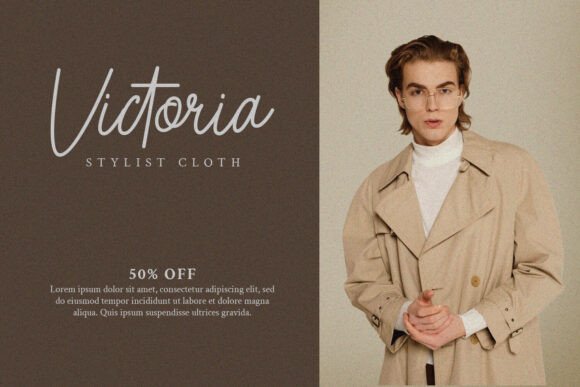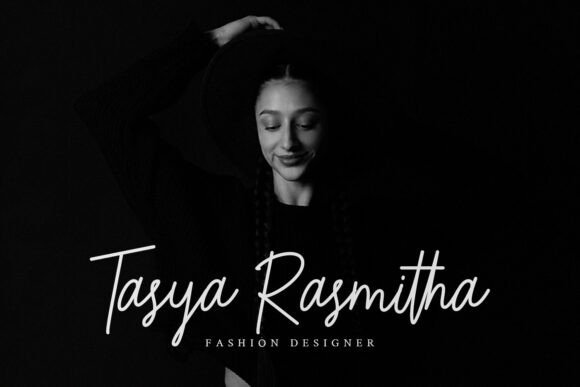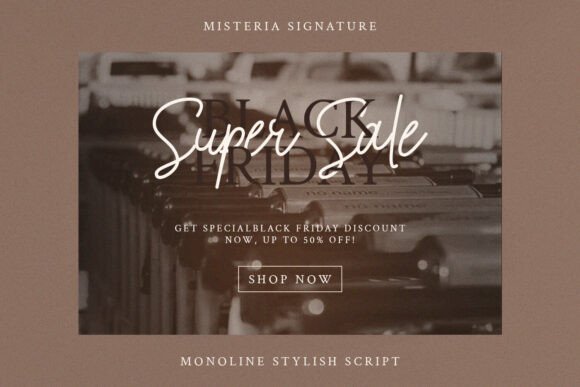
Introduction to Misteria Signature Font
Introducing Misteria Signature, a captivating font that brings the charm and elegance of handwritten calligraphy to your digital creations.
With its flowing strokes, graceful curves, and authentic handwritten style, Misteria Signature adds a touch of personalization and sophistication to any project Misteria Signature is a versatile font that can be used for a variety of purposes, including: – Wedding invitations and stationery – Logos and branding – Marketing materials – Social media graphics – Product packaging.
Key Features of Misteria Signature Font
Why Choose Misteria Signature Font?
Misteria Signature Font offers exceptional quality and versatility, making it a valuable addition to your design toolkit. Whether you’re creating for personal projects or commercial use, Misteria Signature Font delivers professional results.